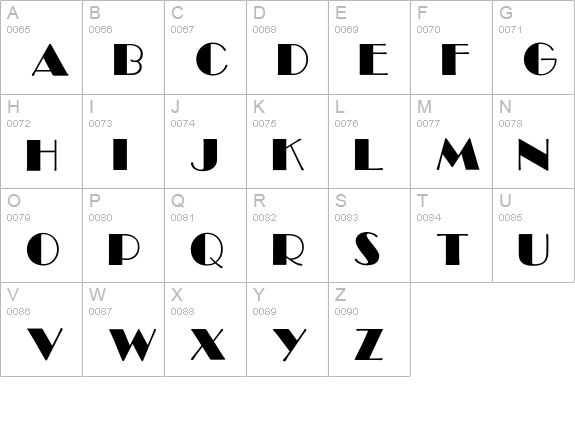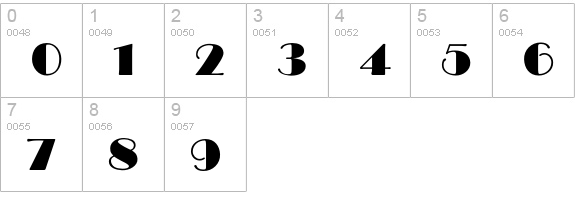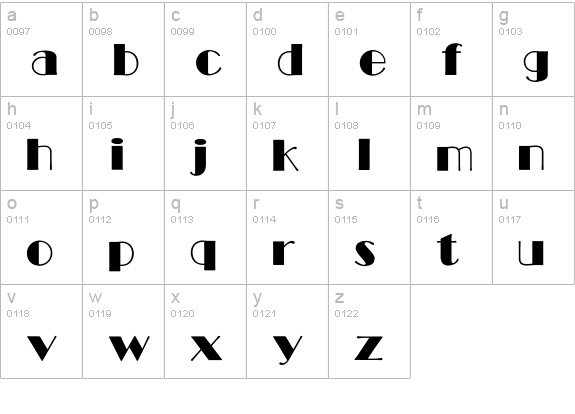
BroadwayFont Font Details
Introducing BroadwayFont, a stunning and elegant font that is sure to bring a touch of sophistication to your projects. With its bold and striking appearance, BroadwayFont is perfect for making a statement and capturing attention. Whether you are designing posters, logos, or invitations, this versatile font will add a touch of glamour and class. The best part? BroadwayFont is completely free to download at FontsMarket.com. You can easily access this stylish font and elevate your designs without any cost. Don't miss out on the opportunity to enhance your creations with the timeless beauty of BroadwayFont. Download it today and let your creativity shine!